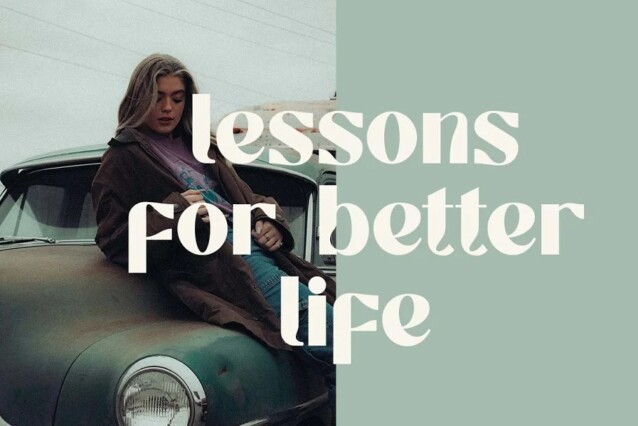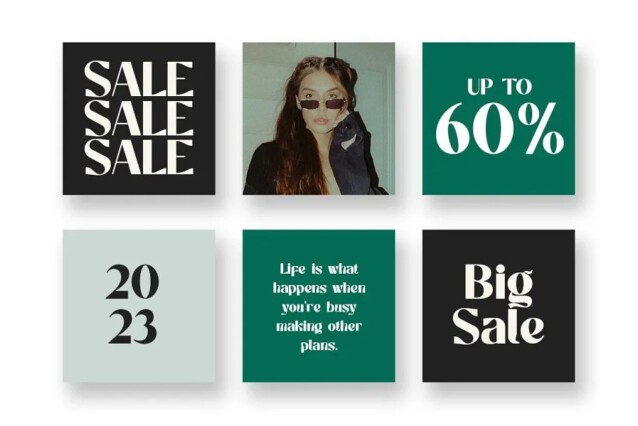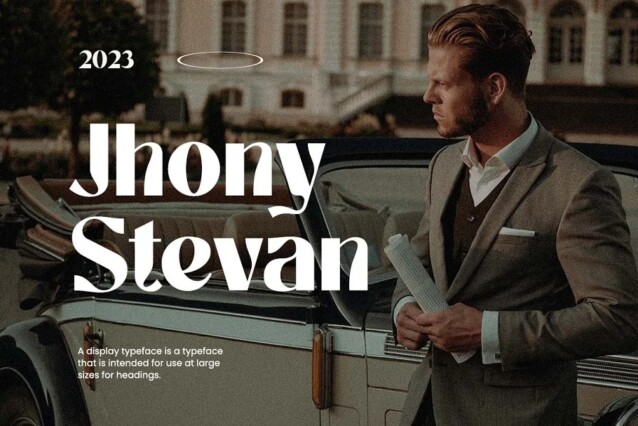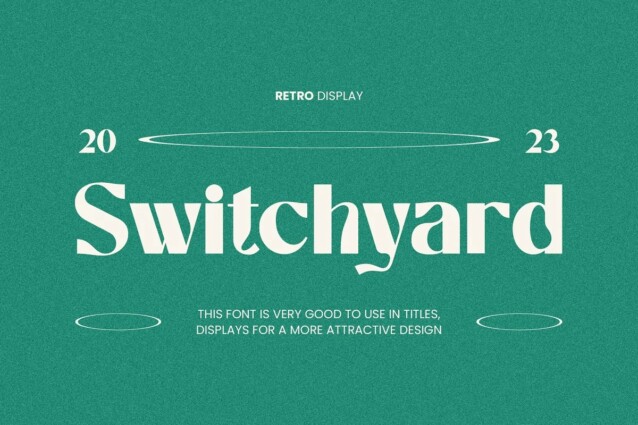
Switchyard Font
Switchyard Font is a sans serif font with a classic yet modern style with subtle curves and a beautiful binding. This font is ideally suited for a wide variety of projects, such as signature, stationery, logo, wedding, typography quotes, magazine or book covers, website headers, clothing, branding, packaging design, and more. Also, fashion-related branding or editorial design displays both masculine and feminine qualities.